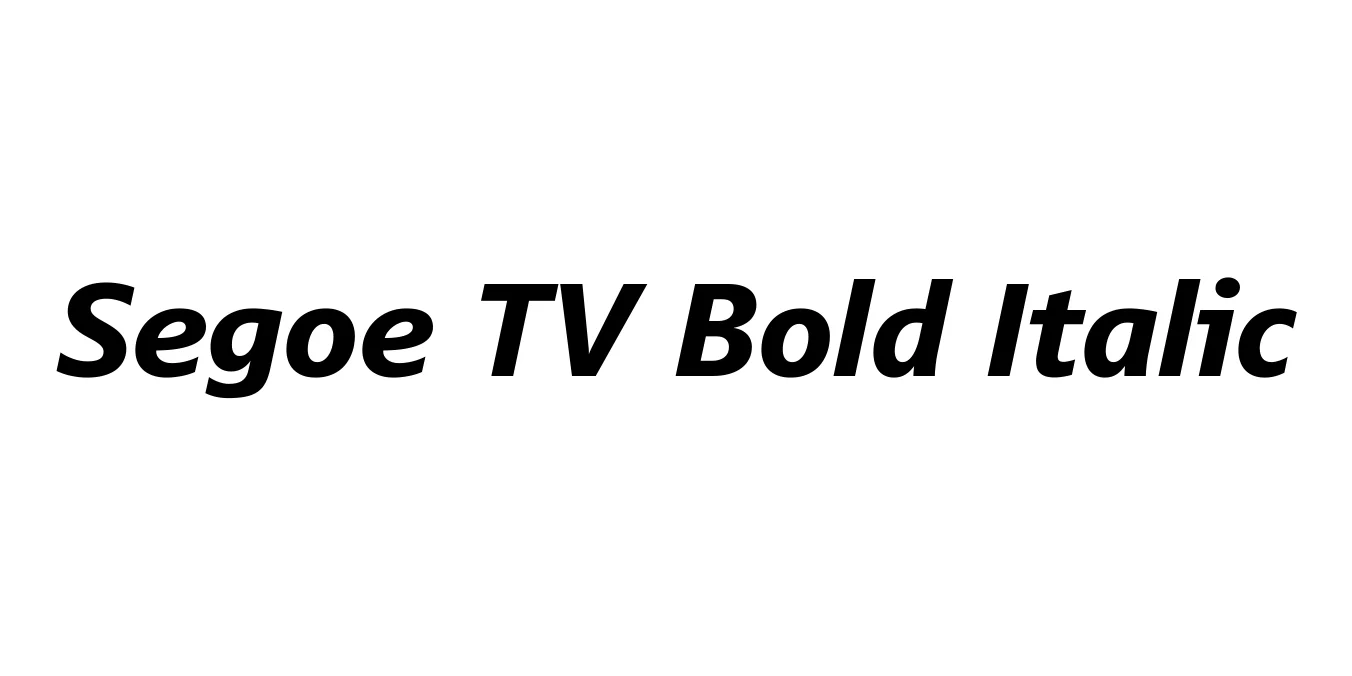
Segoe TV Bold Italic
Designed by Steve Matteson
Segoe TV Bold Italic is a specialized iteration of the iconic Segoe typeface family, specifically engineered for Microsoft to provide superior legibility on television screens and high-definition digital interfaces. This font family was designed to bridge the gap between traditional print typography and the unique demands of screen-based media, featuring open apertures and a balanced x-height that resists pixel blurring at various viewing distances.
The Bold Italic variant is particularly effective for creating visual hierarchy and emphasis within user interfaces. Its humanist design origins, heavily influenced by modern sans-serif classics like Frutiger, allow it to remain approachable while maintaining a clean, professional aesthetic. It is frequently utilized in interactive media, sports broadcasting graphics, and system-level notifications where clarity and a sense of motion are paramount.
Segoe TV Bold Italic Best Uses
Perfect for on-screen overlays, lower thirds, and live sports data.
Highly effective for menu items and emphasized text in media-rich applications.
Optimized for readability on large public displays and menu boards.
Well-suited for HUD elements and in-game text that requires quick recognition.